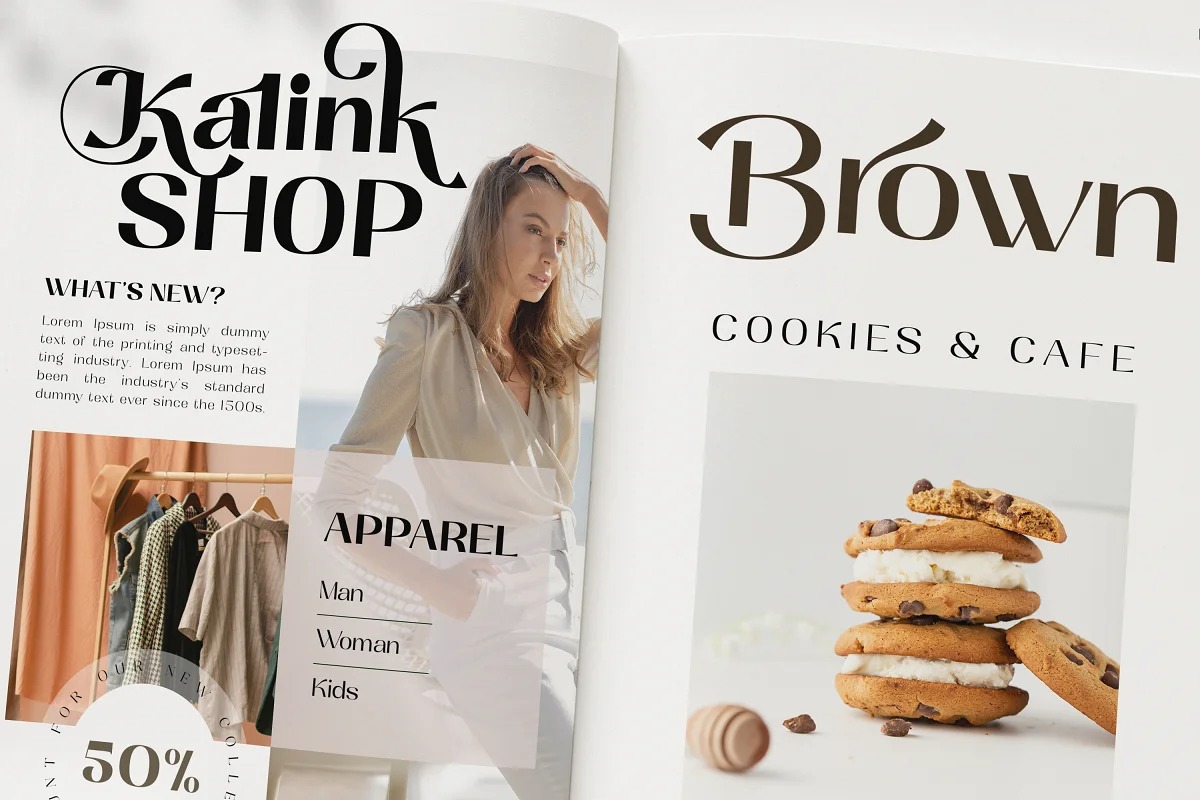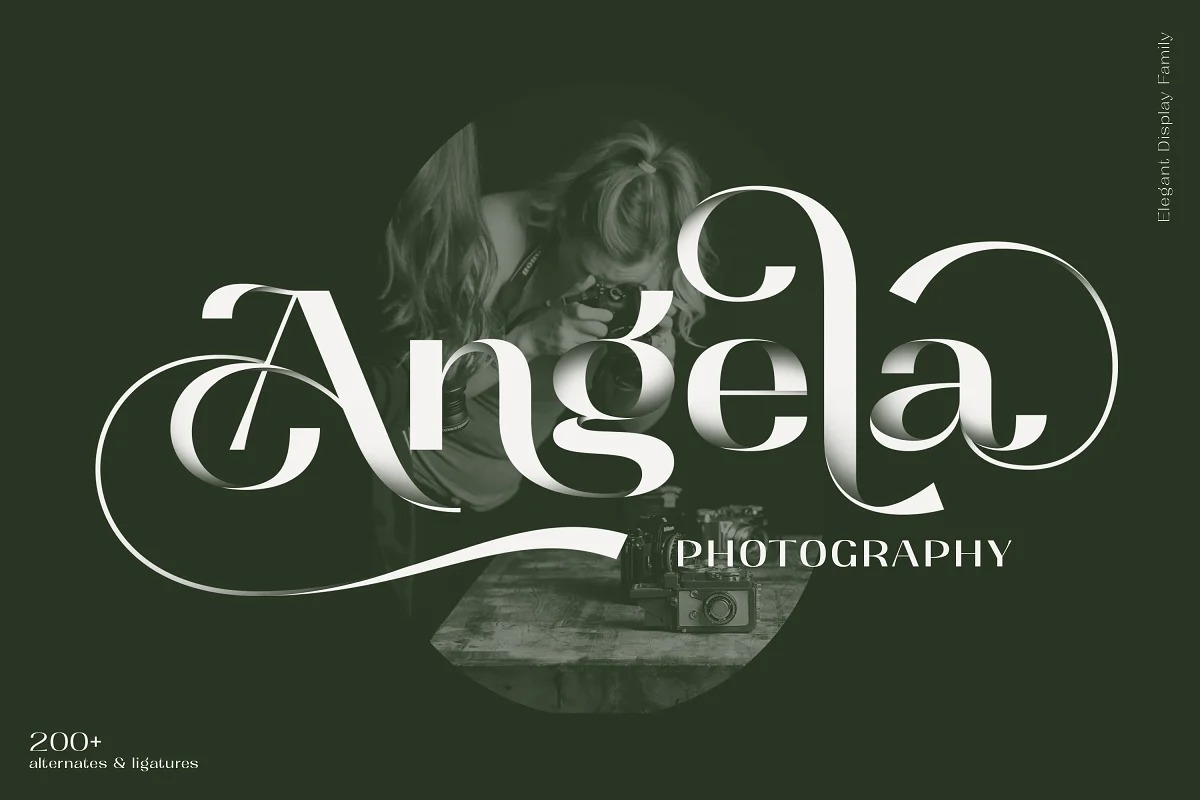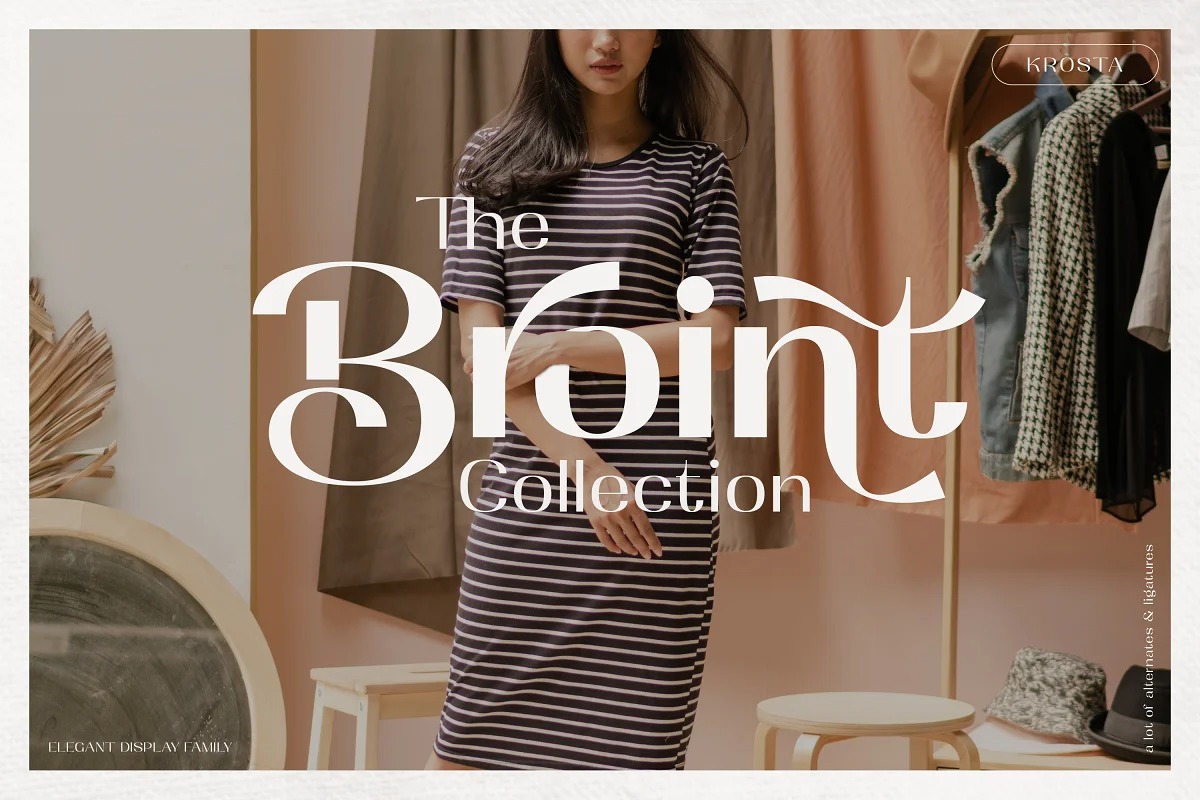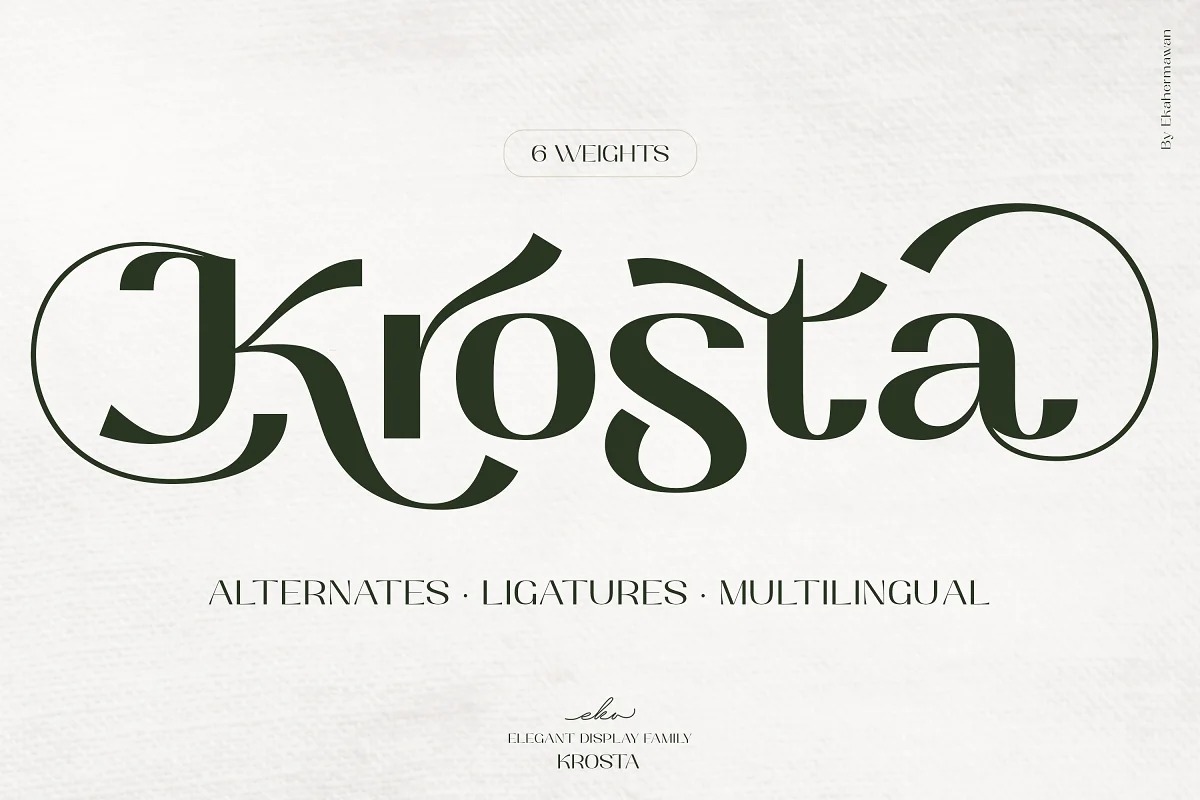
Krosta Font
Krosta Sans Serif Font is an elegant sans serif font that look classy. Made from font designer named Ekahermawan. All the alternates and ligatures characters of Krosta are specially designed to make your typography design result looks more unique and attractive. Krosta is suitable for many different projects such as logo design, wedding, branding, poster, magazines, labels, merchandise, invitation, presentation, advertising and so much more!